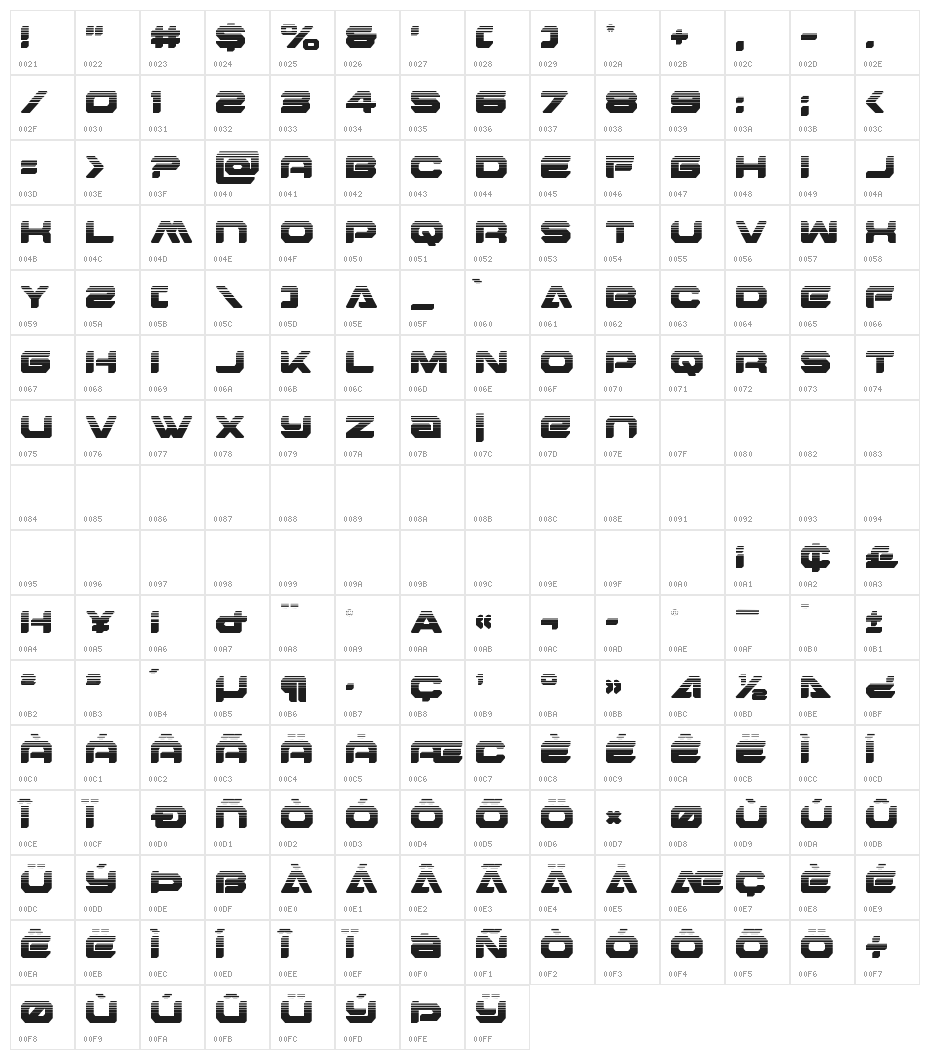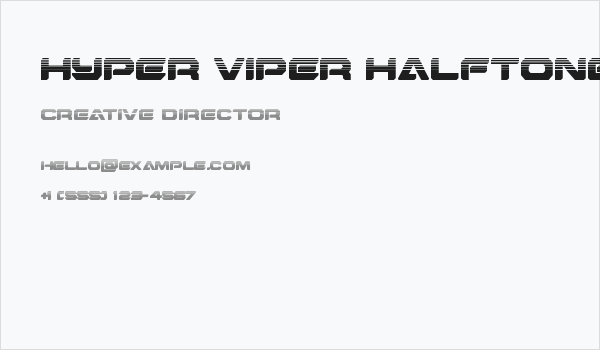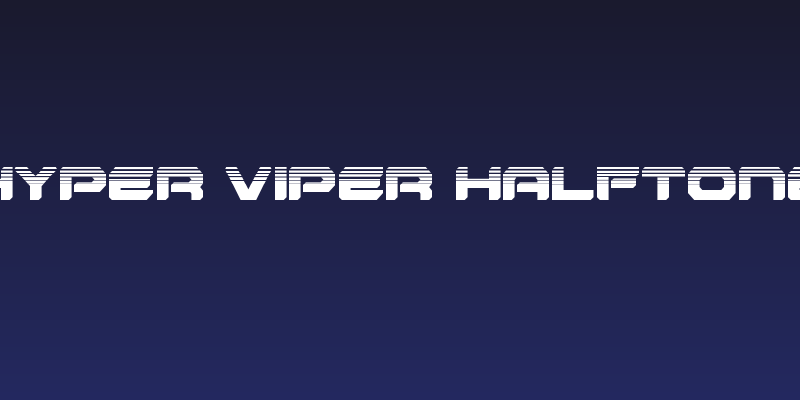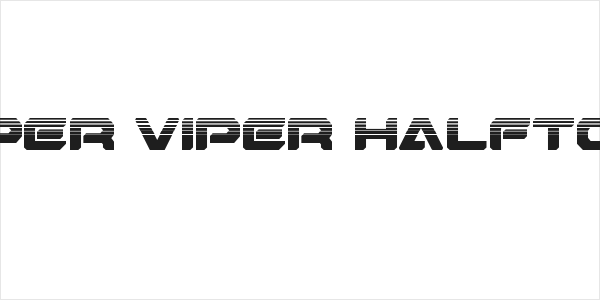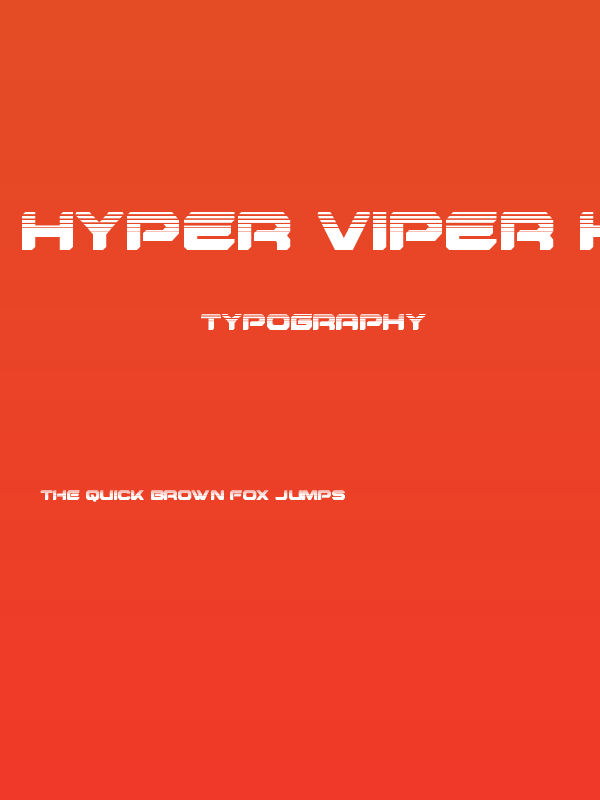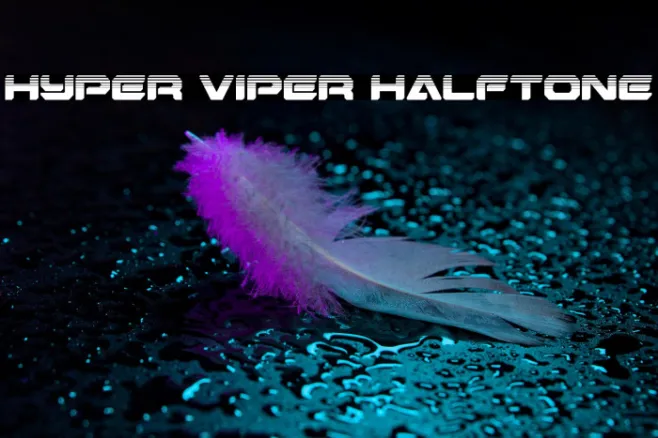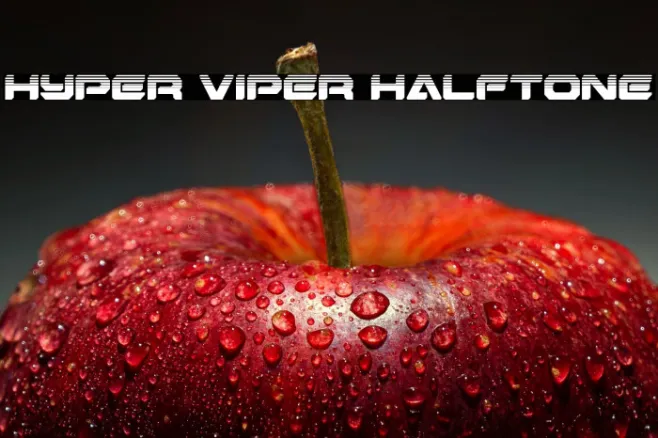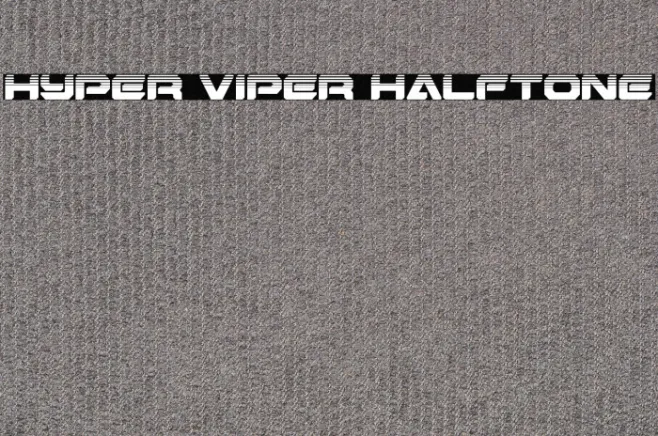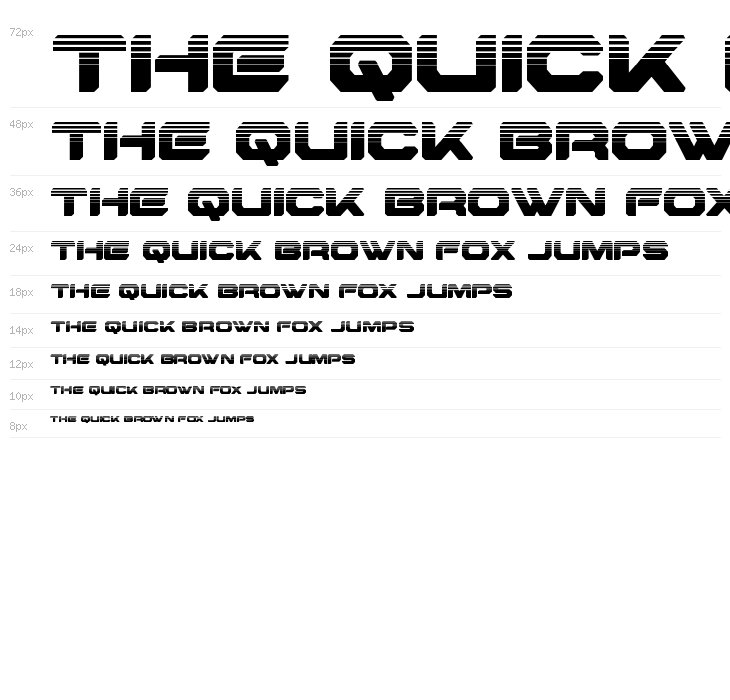
Hyper Viper Halftone Font
Hyper Viper Halftone Description
This font features a bold, futuristic design with a distinct halftone effect. Each character is constructed with horizontal lines that create a sense of movement and depth, giving it a dynamic and modern appearance. The uppercase and lowercase letters maintain a consistent style, emphasizing geometric shapes and sharp angles. The numerals and special characters follow the same design principles, ensuring uniformity across all glyphs. This font is ideal for projects that require a strong visual impact, such as branding, posters, and digital media.
| Proposed Projects | Ideal for branding, posters, digital media, and any project needing a strong visual impact. |